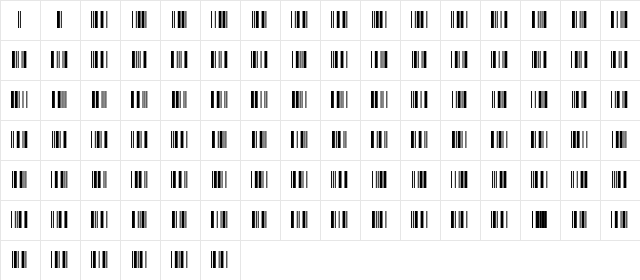
Interleaved 2of5 NT Regular
Design Context for Interleaved 2of5 NT Typeface
Interleaved 2of5 NT takes a measured approach to typography — its balanced proportions and neutral character make it a reliable workhorse for both digital and print work.